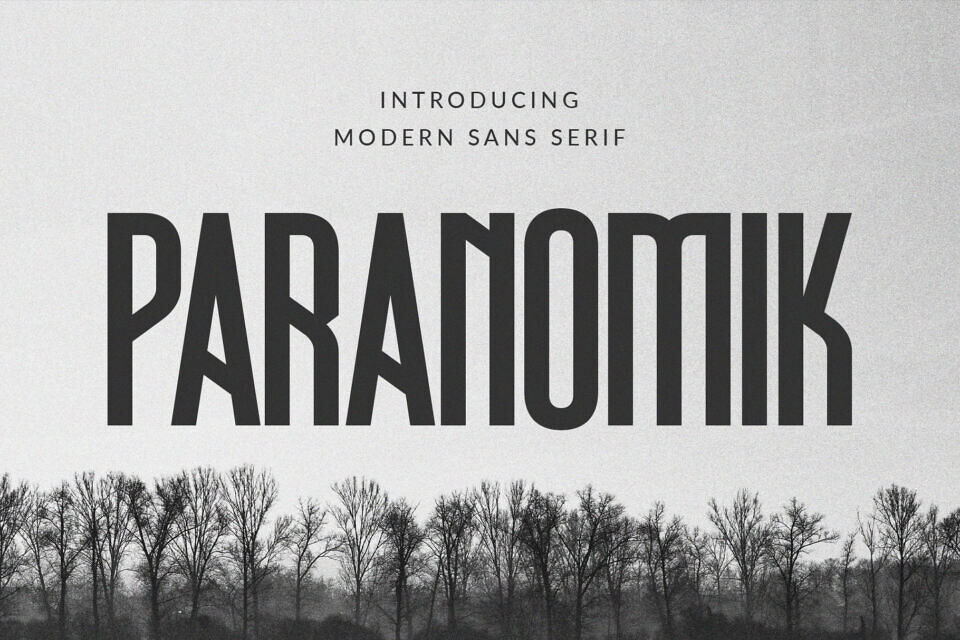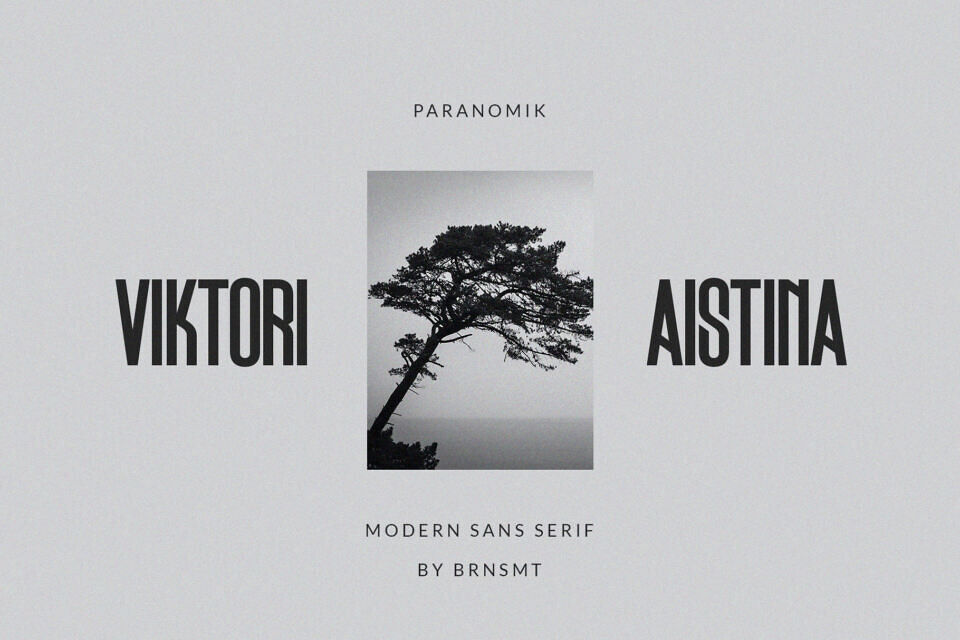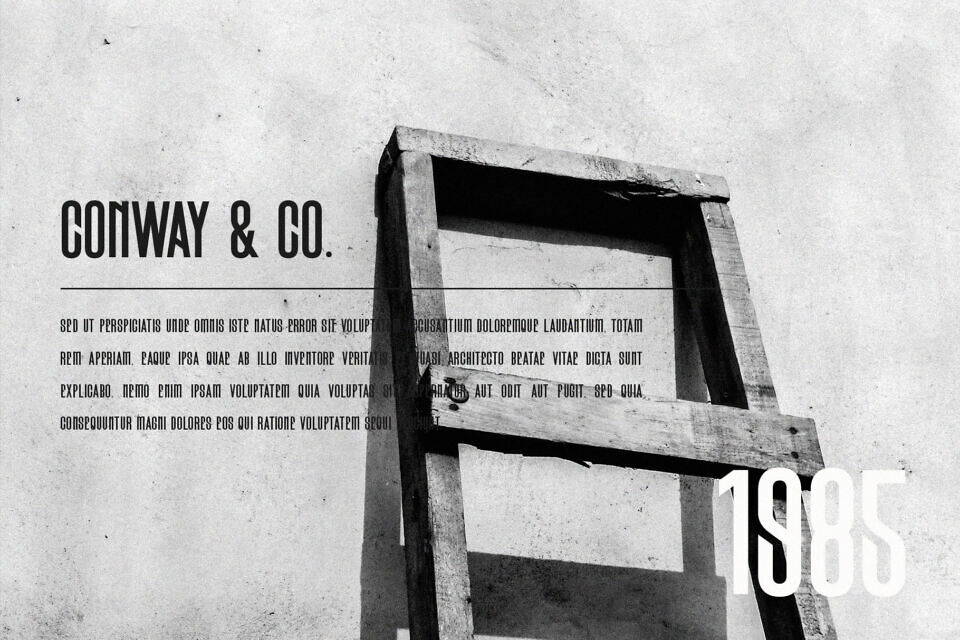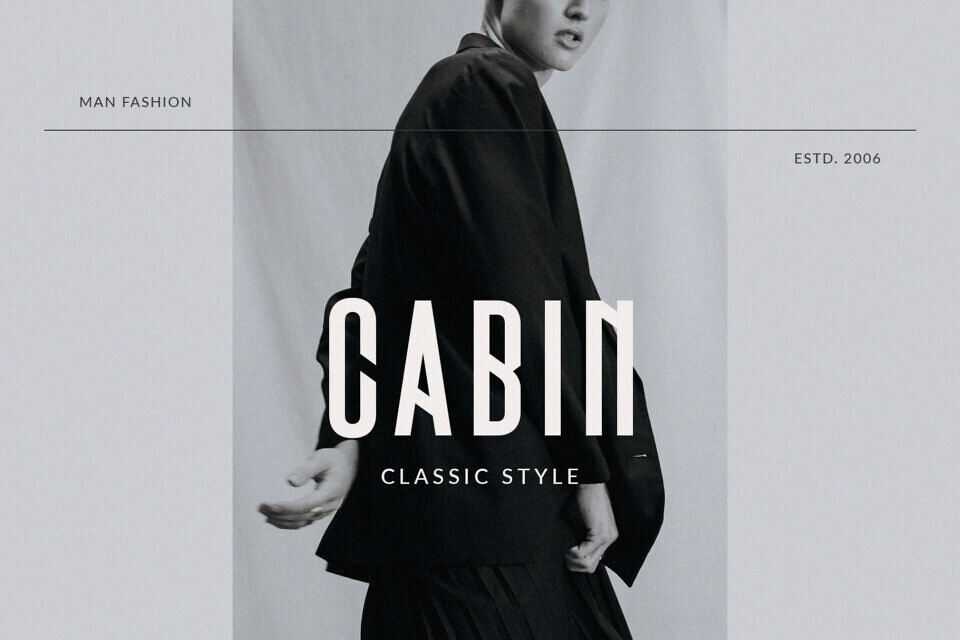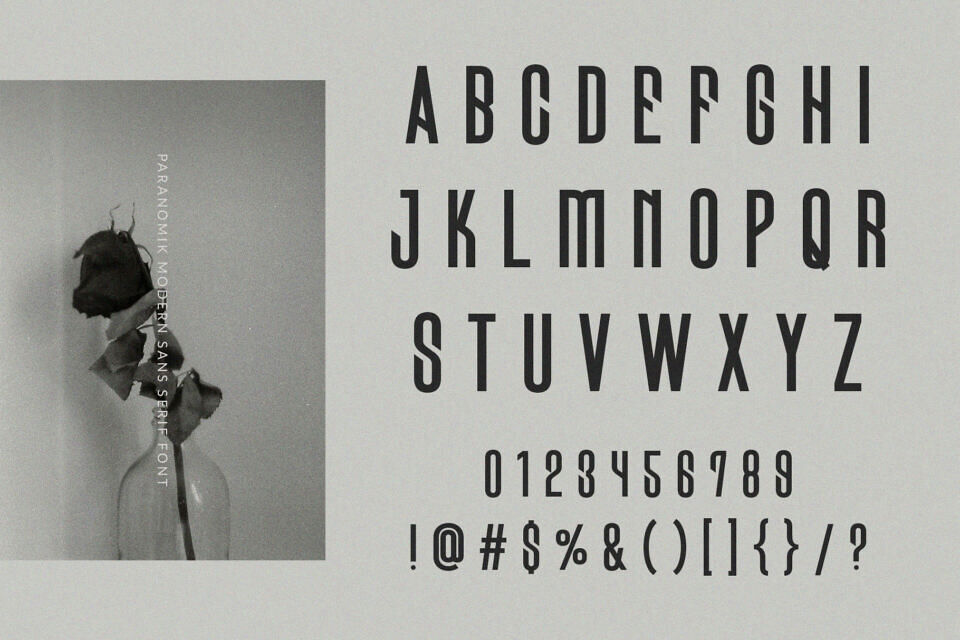
Paranomik Font
Introducing Paranomik Modern Sans Serif. Paranomik is a modern and classy typeface, best used as a display for headings, logos, branding, magazines, product packaging and invitations. Paranomik come with clean lines and smooth curves give any project an extra touch of class.